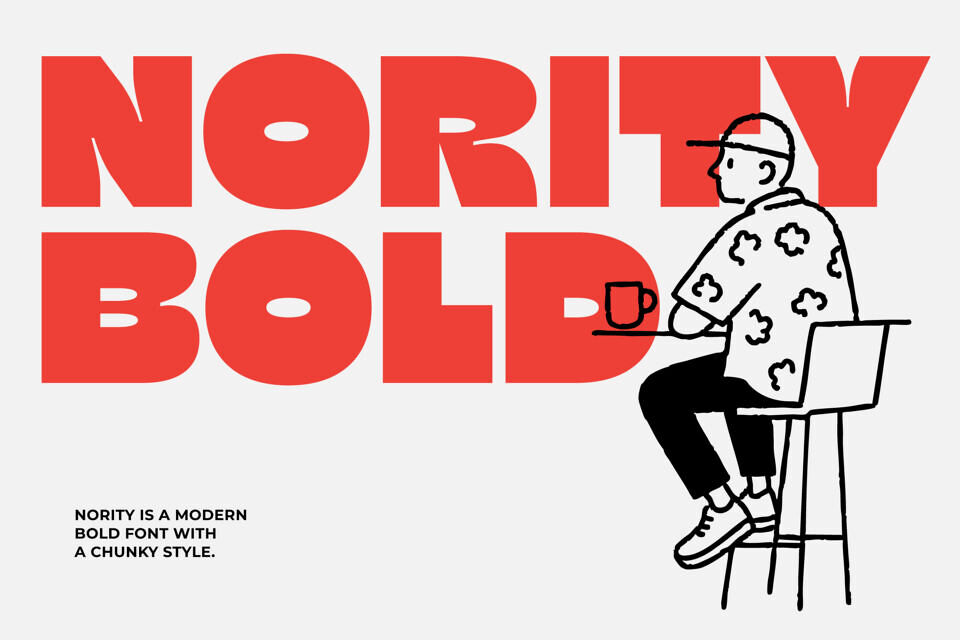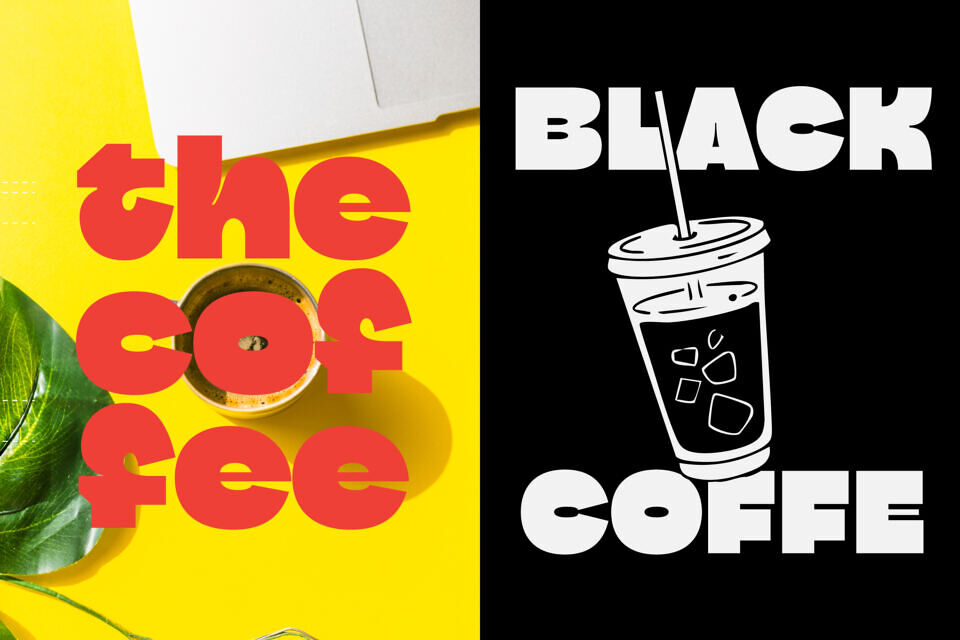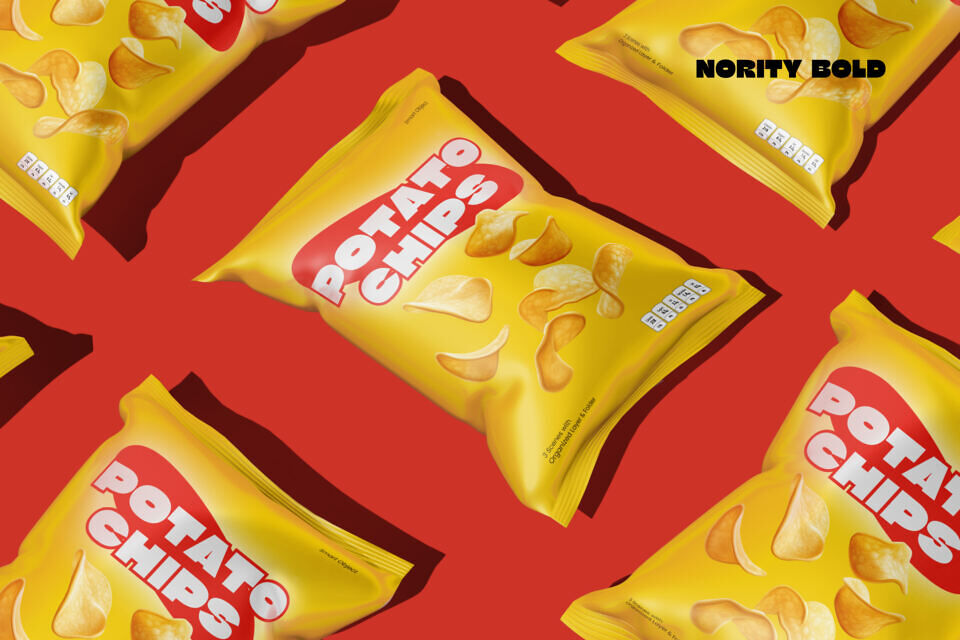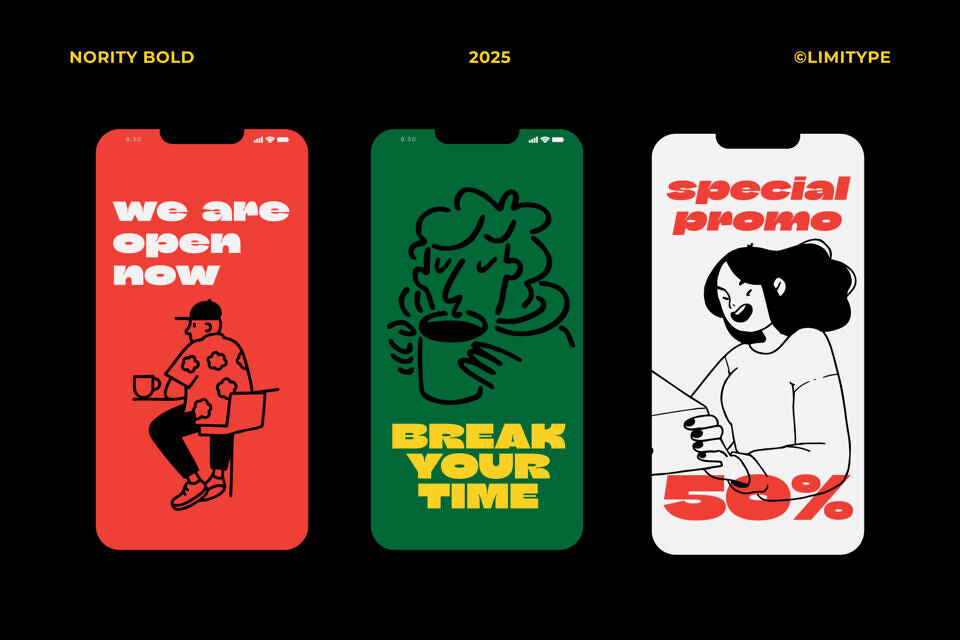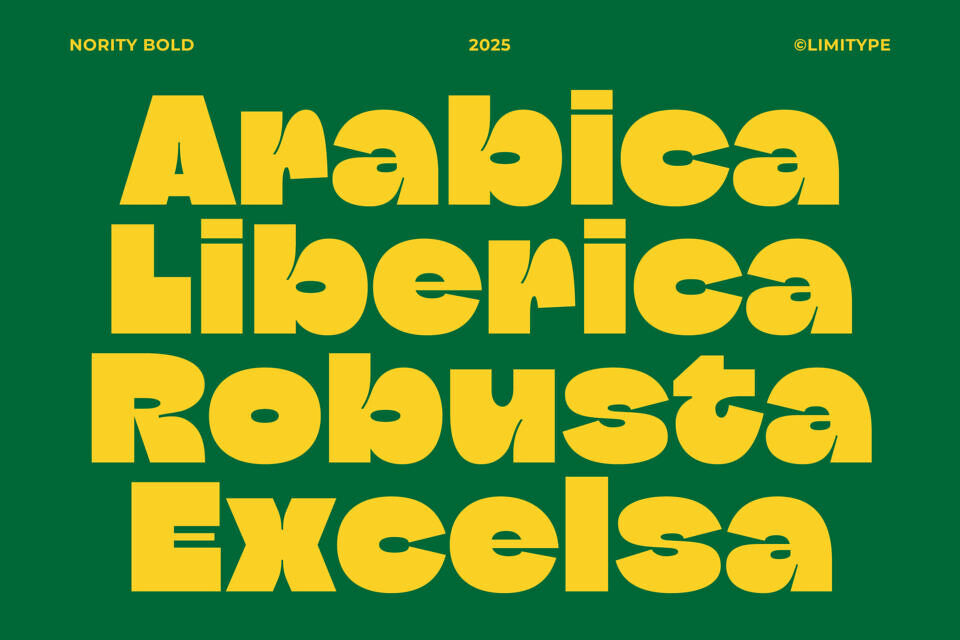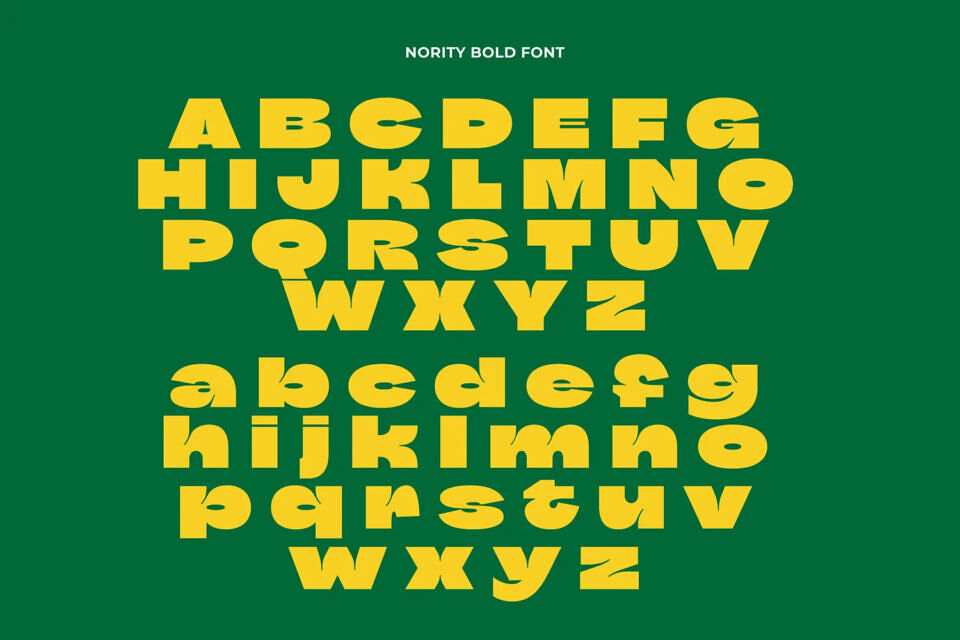
Nority Font
Nority is a bold and chunky display font style with strong geometric construction and modern inktrap inspired details that give each letter a distinctive, playful character.
Its thick strokes and square proportions give it a modern, confident, and impactful appearance. The font stands out with a solid and stable presence, making it perfect for logos, posters, and packaging that aim to stand out with style, expression, and memorability.
Designed by: Limitype